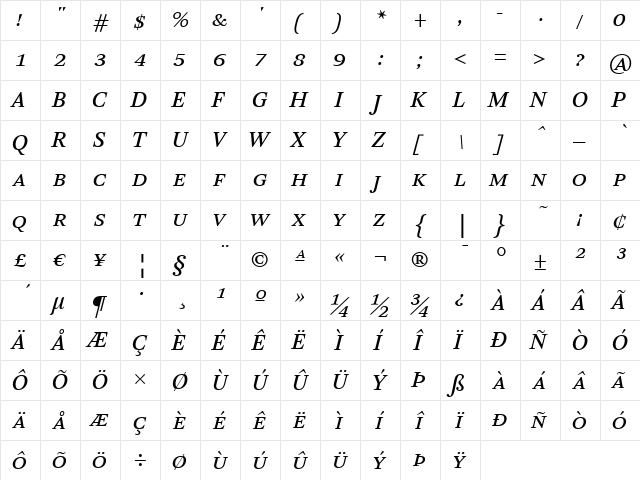
ArnhemSmallCaps Medium Font Preview
ArnhemSmallCaps Medium
Design Context for ArnhemSmallCaps Typeface
ArnhemSmallCaps offers clean, dependable letterforms without strong stylistic allegiance, making it a practical choice for designers who need flexibility.